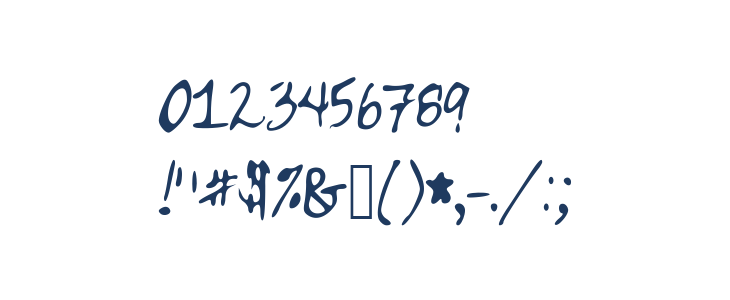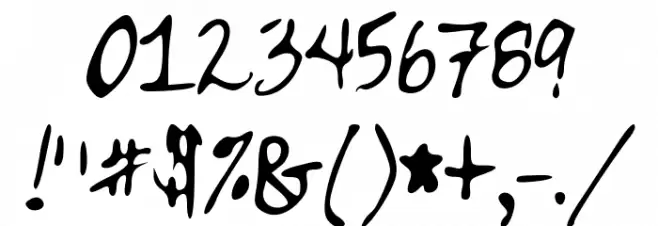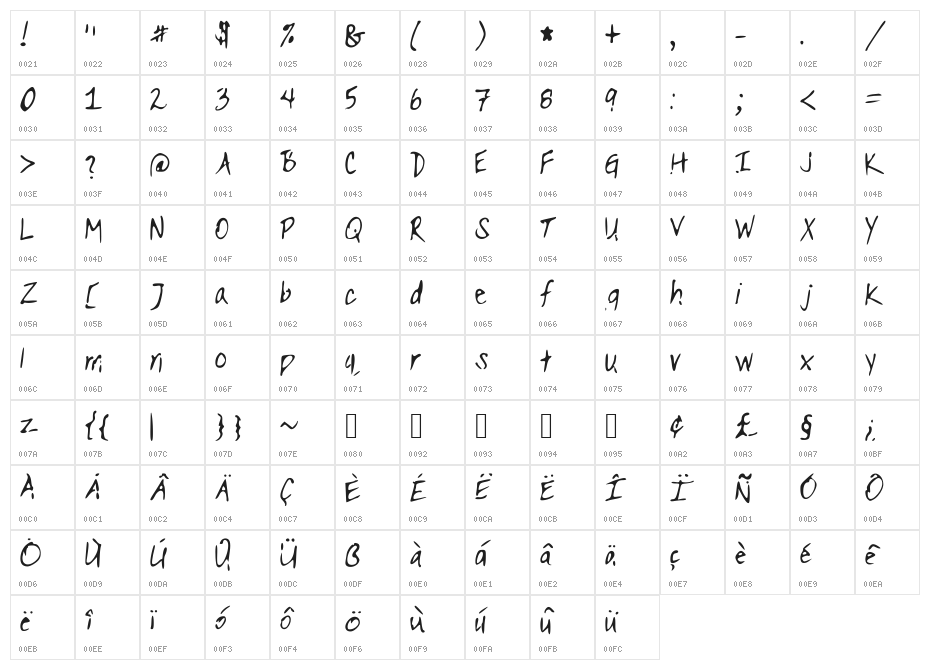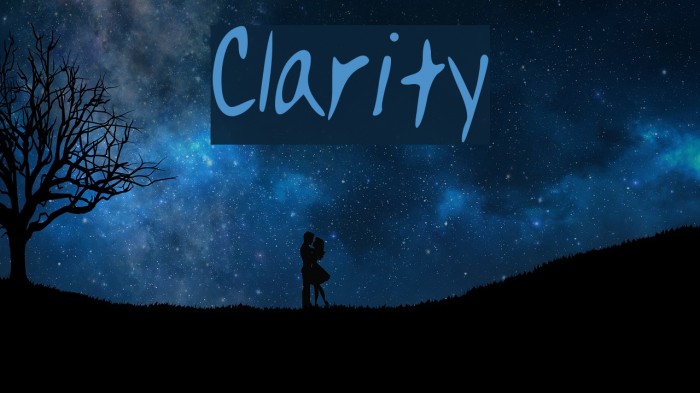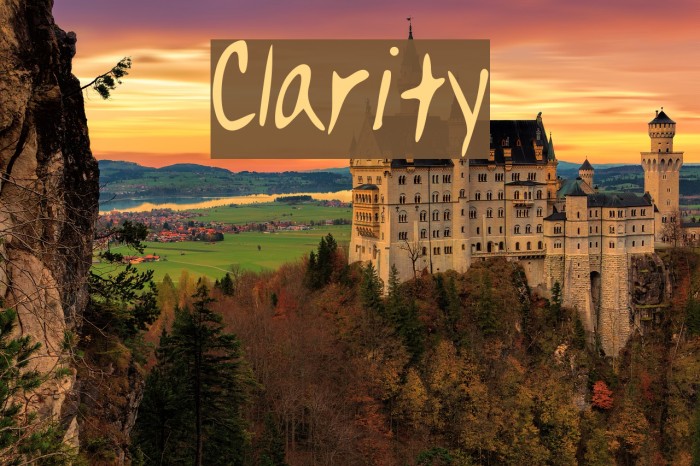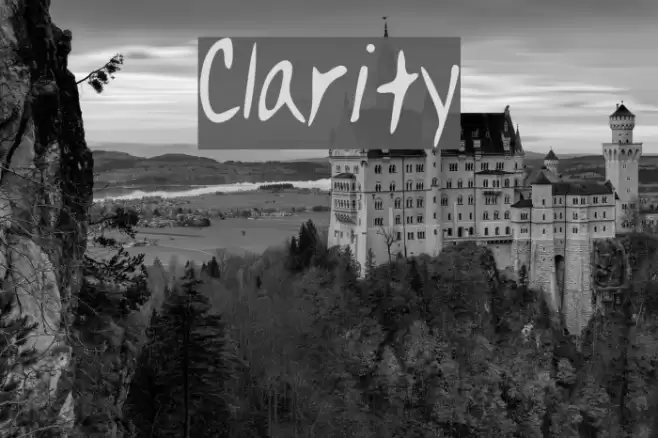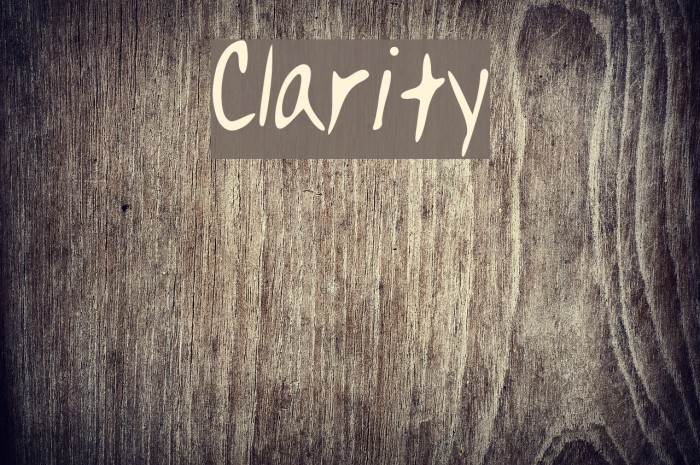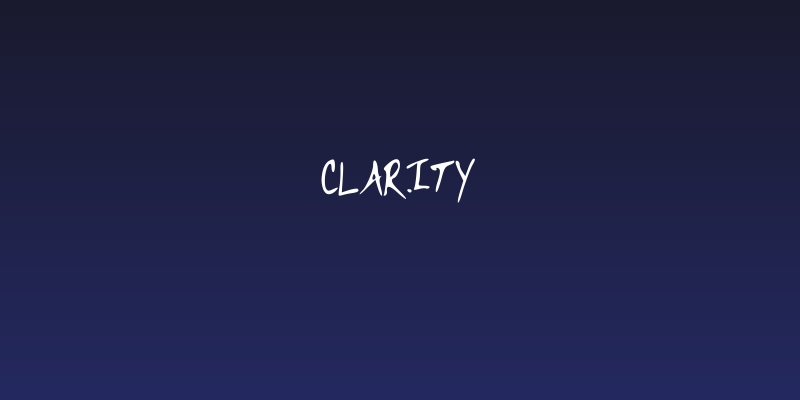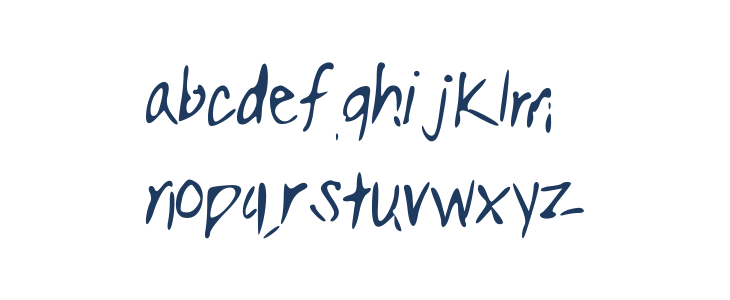
Clarity Font
Clarity Description
This font features a dynamic and expressive handwritten style, characterized by its irregular strokes and playful curves. The letters vary in size and angle, giving it a lively and spontaneous appearance. The uppercase letters are bold and prominent, while the lowercase letters maintain a consistent flow, enhancing its casual and informal vibe. Numbers and special characters are crafted with the same energetic flair, making them stand out. The overall design is reminiscent of personal handwriting, adding a touch of personality and warmth to any text.
| Proposed Projects | Ideal for creative projects such as greeting cards, invitations, personal branding, and artistic posters. |